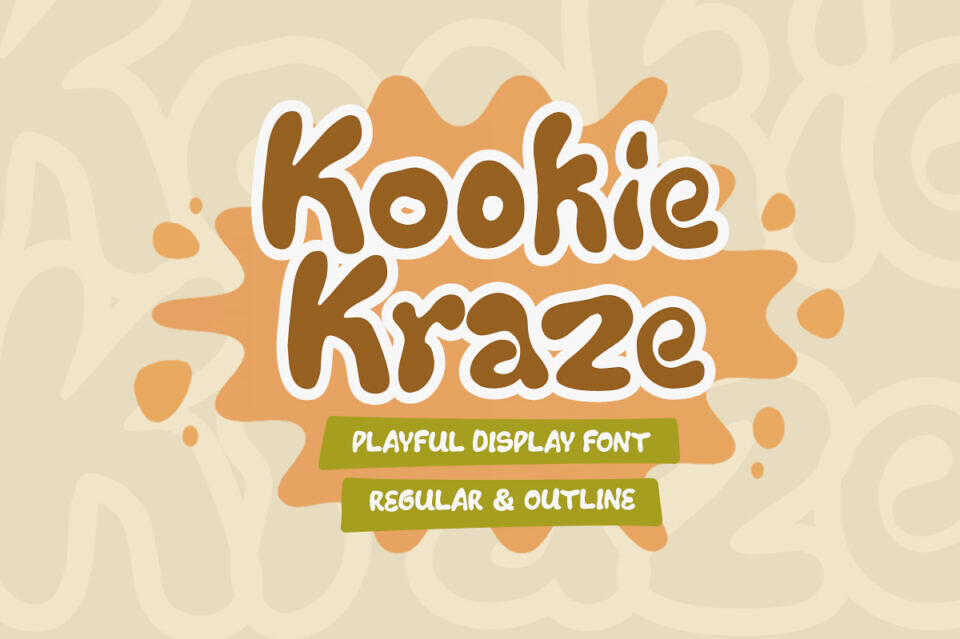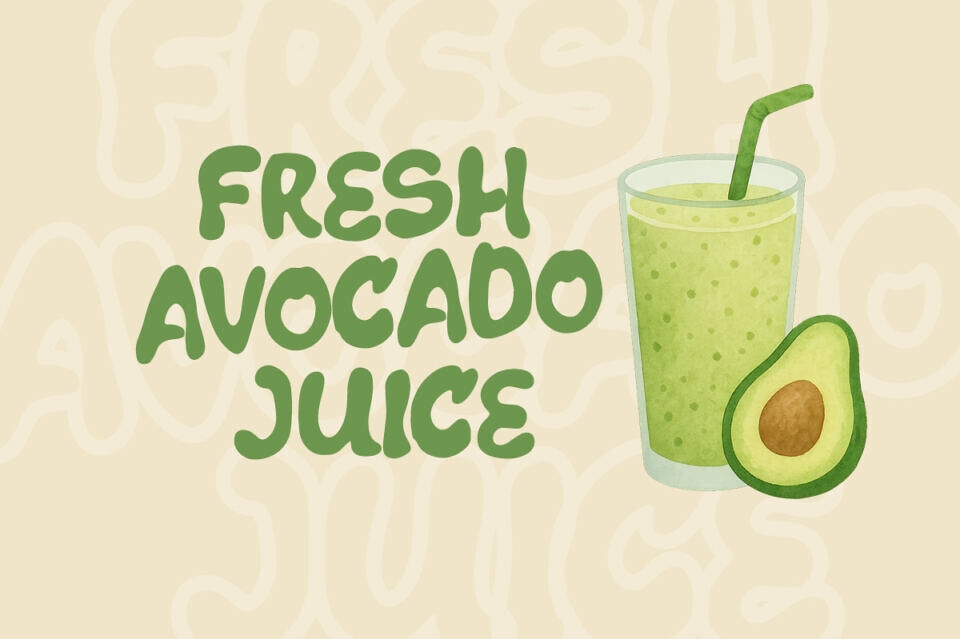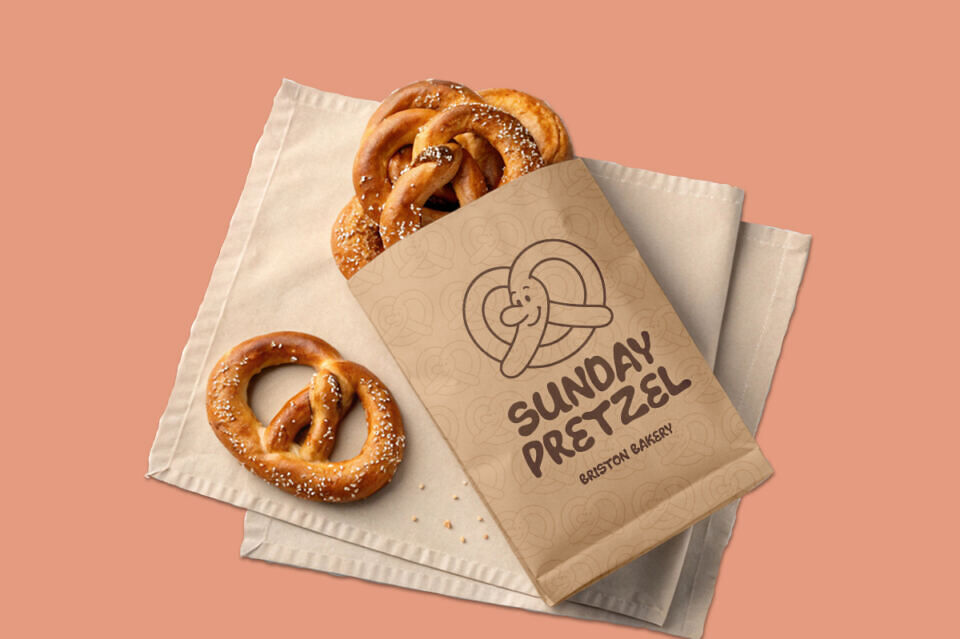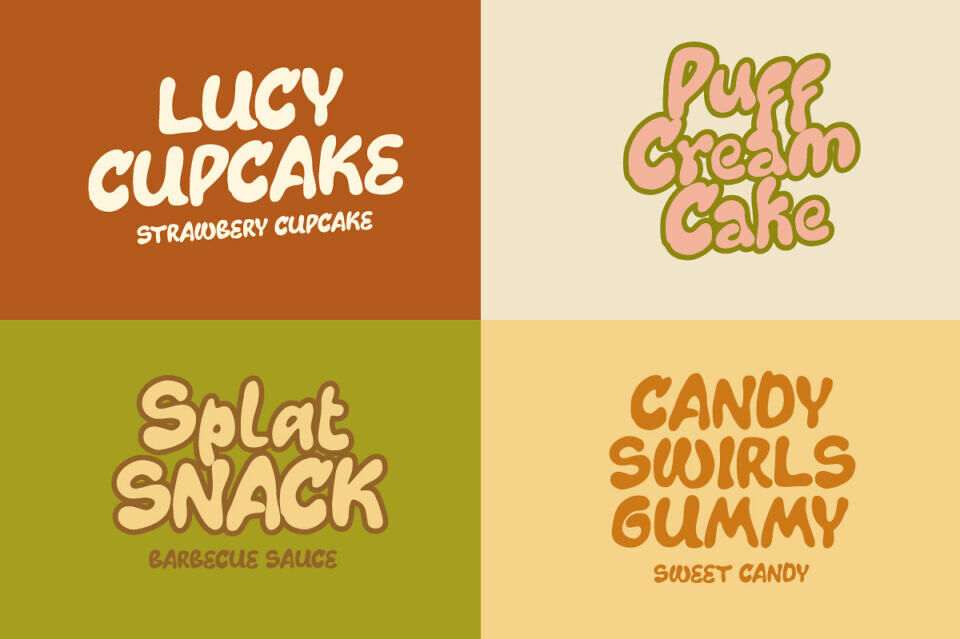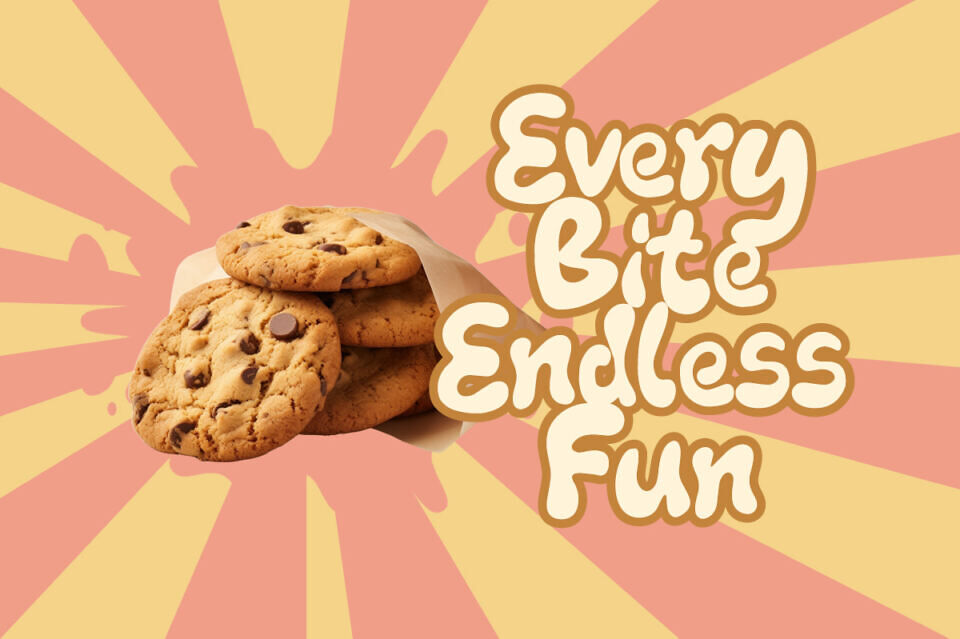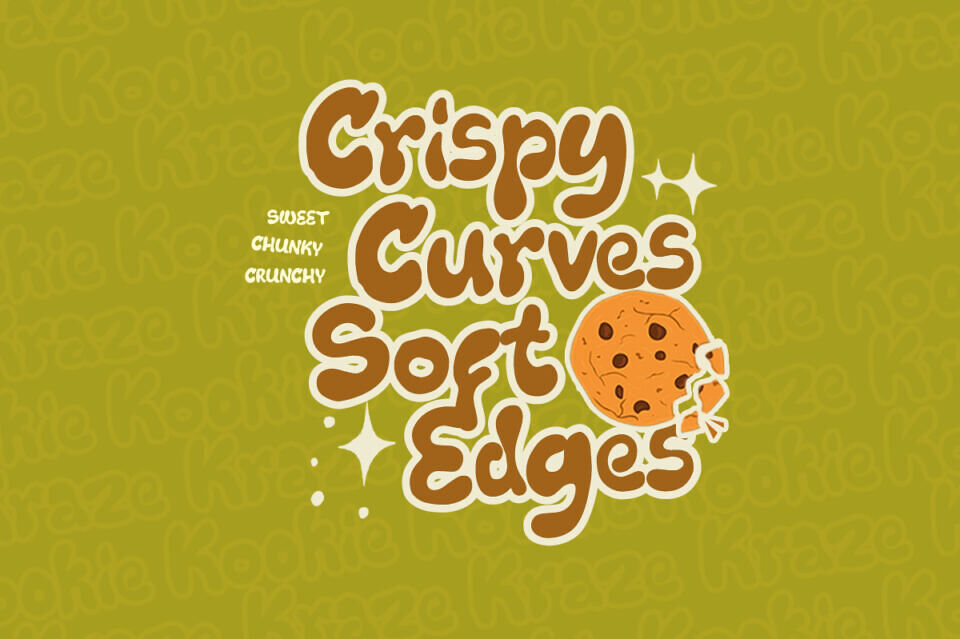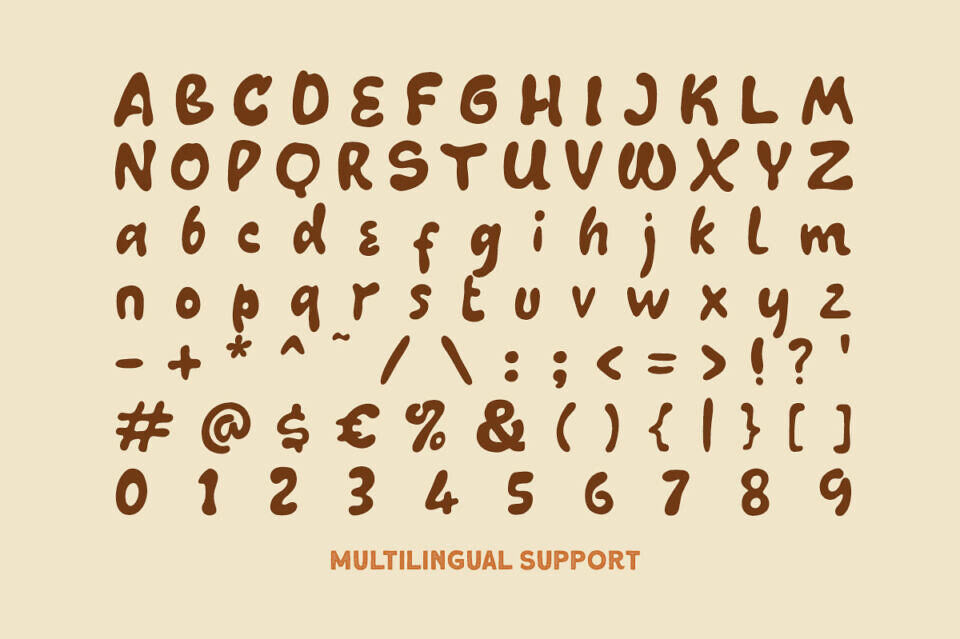
Kookie Kraze is a playful display font that is chunky and full of energy. This typeface is ideal for projects that require a playful and upbeat feel because of its gentle rounded shapes and amiable curves.
Examples of such projects include social media graphics, food packaging, kids’ designs, posters, and playful branding. You can mix and match it while maintaining the same eccentric, personable personality because it comes in Regular and Outline styles.